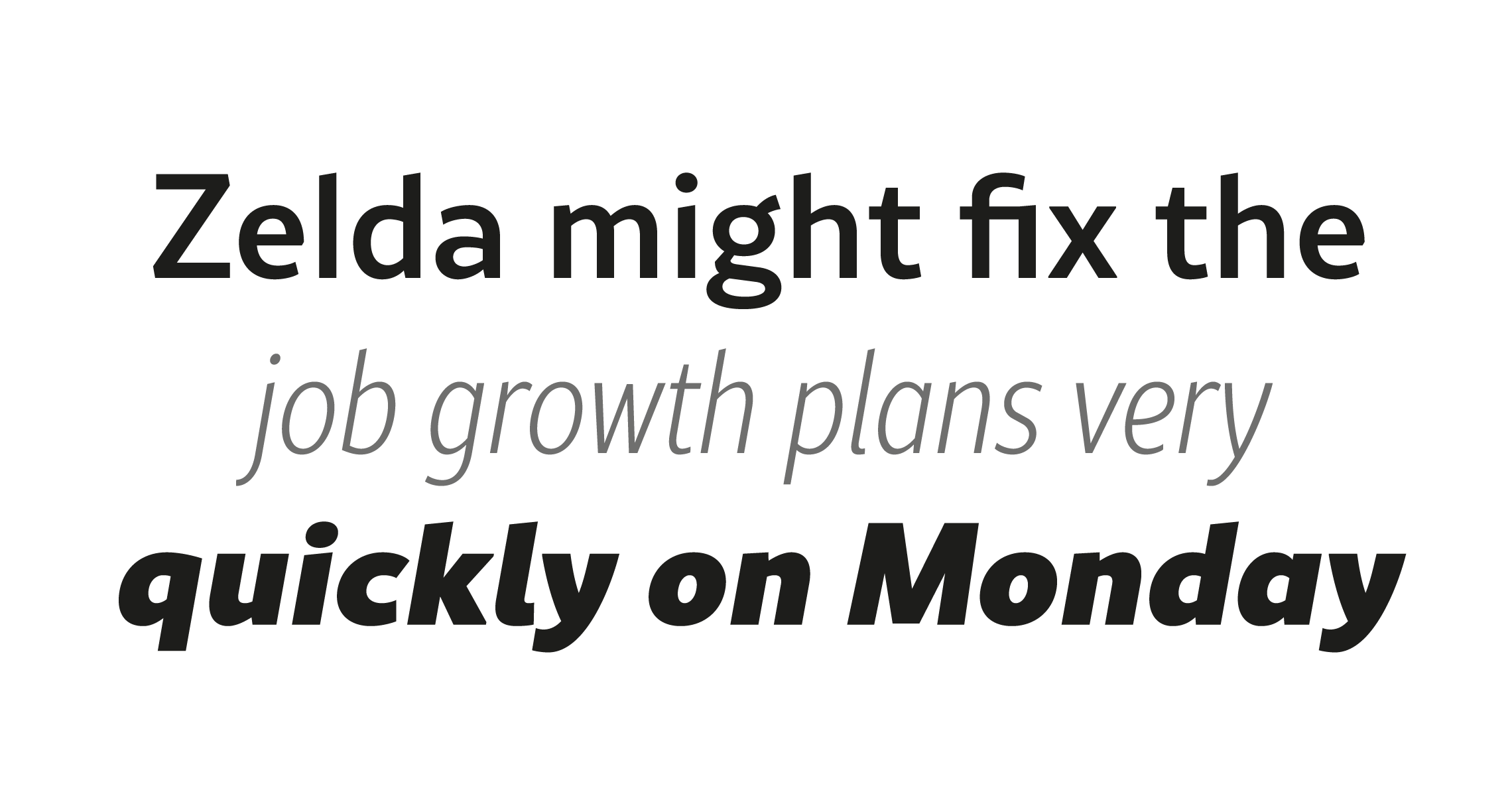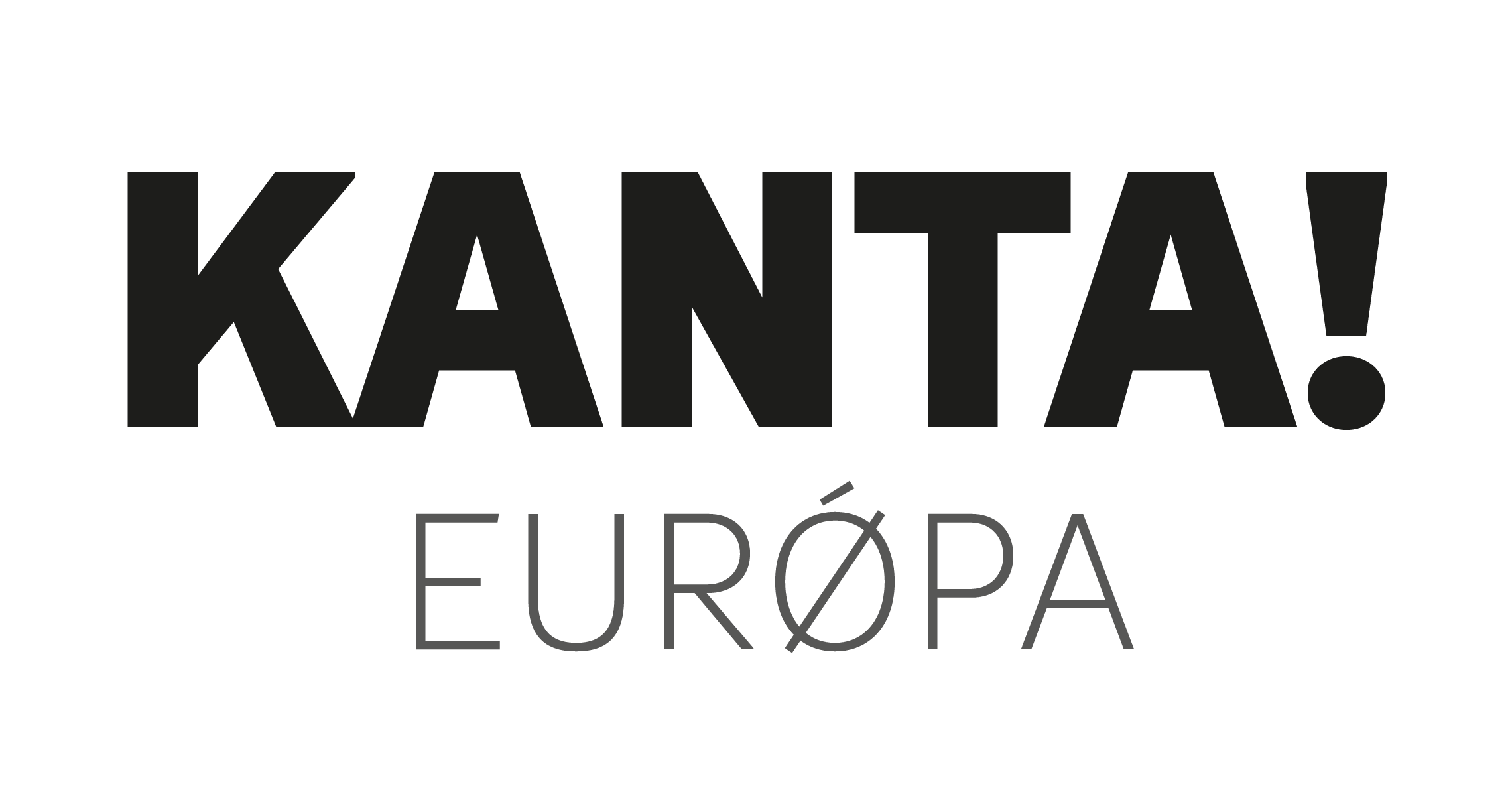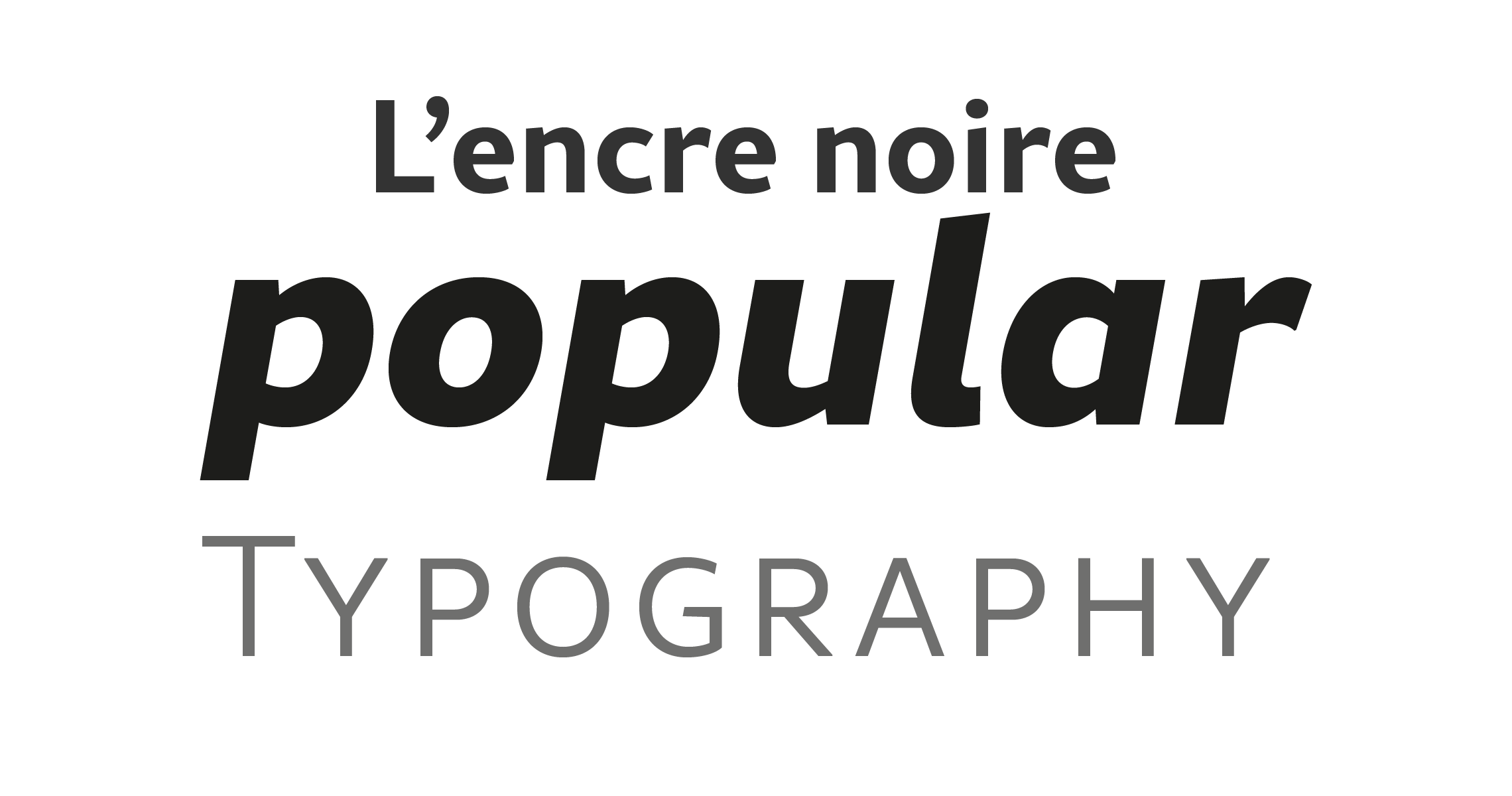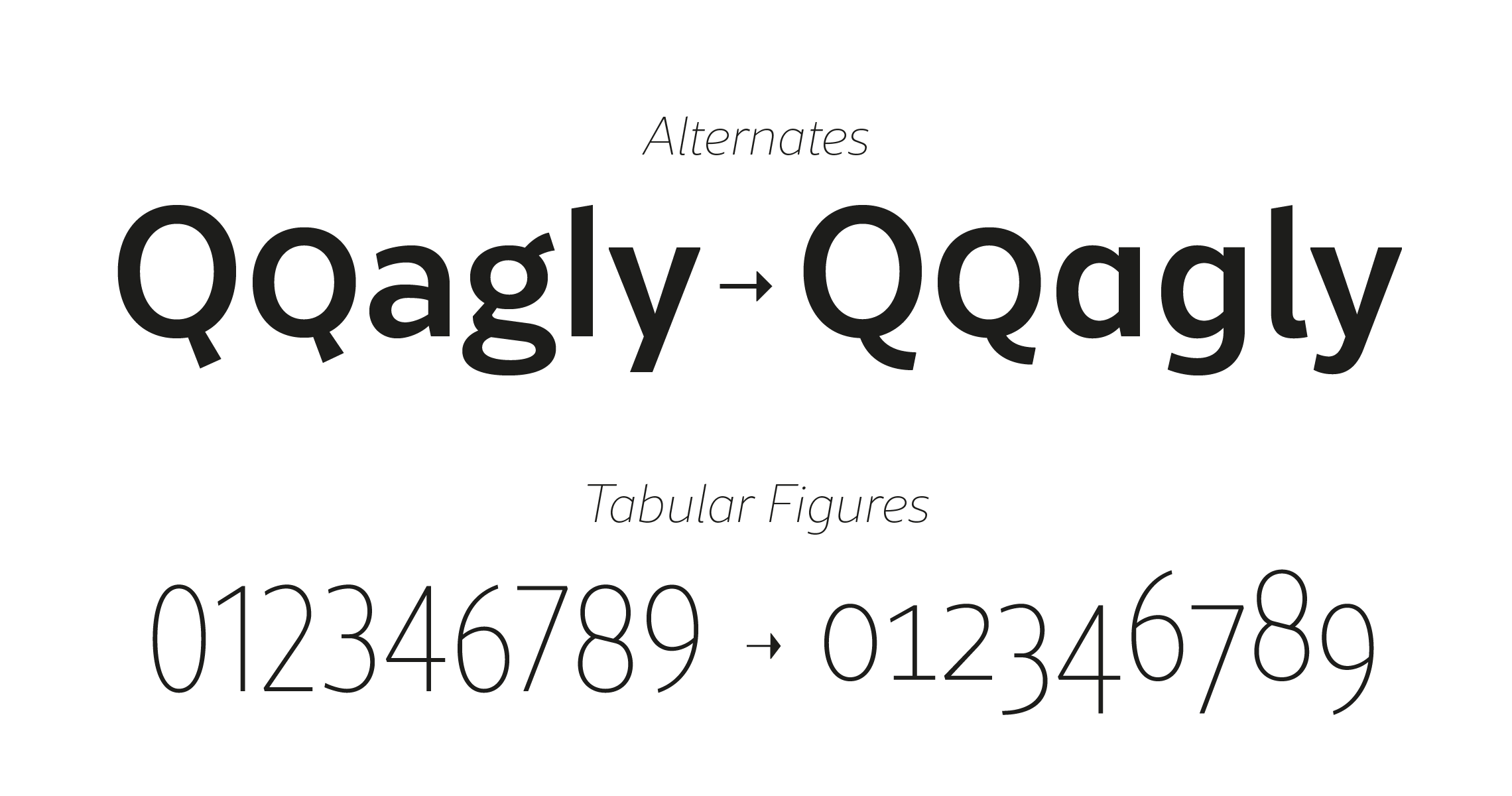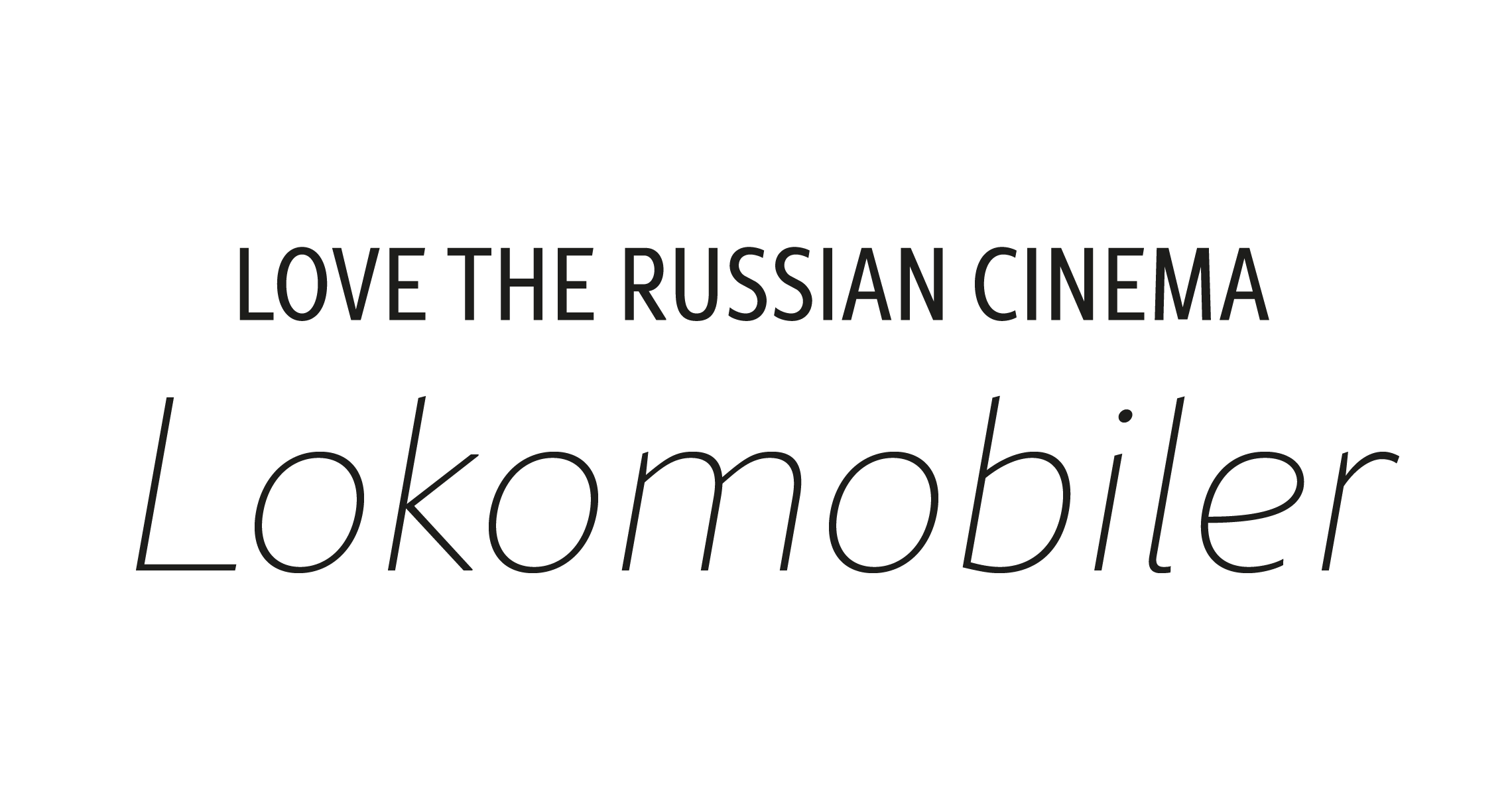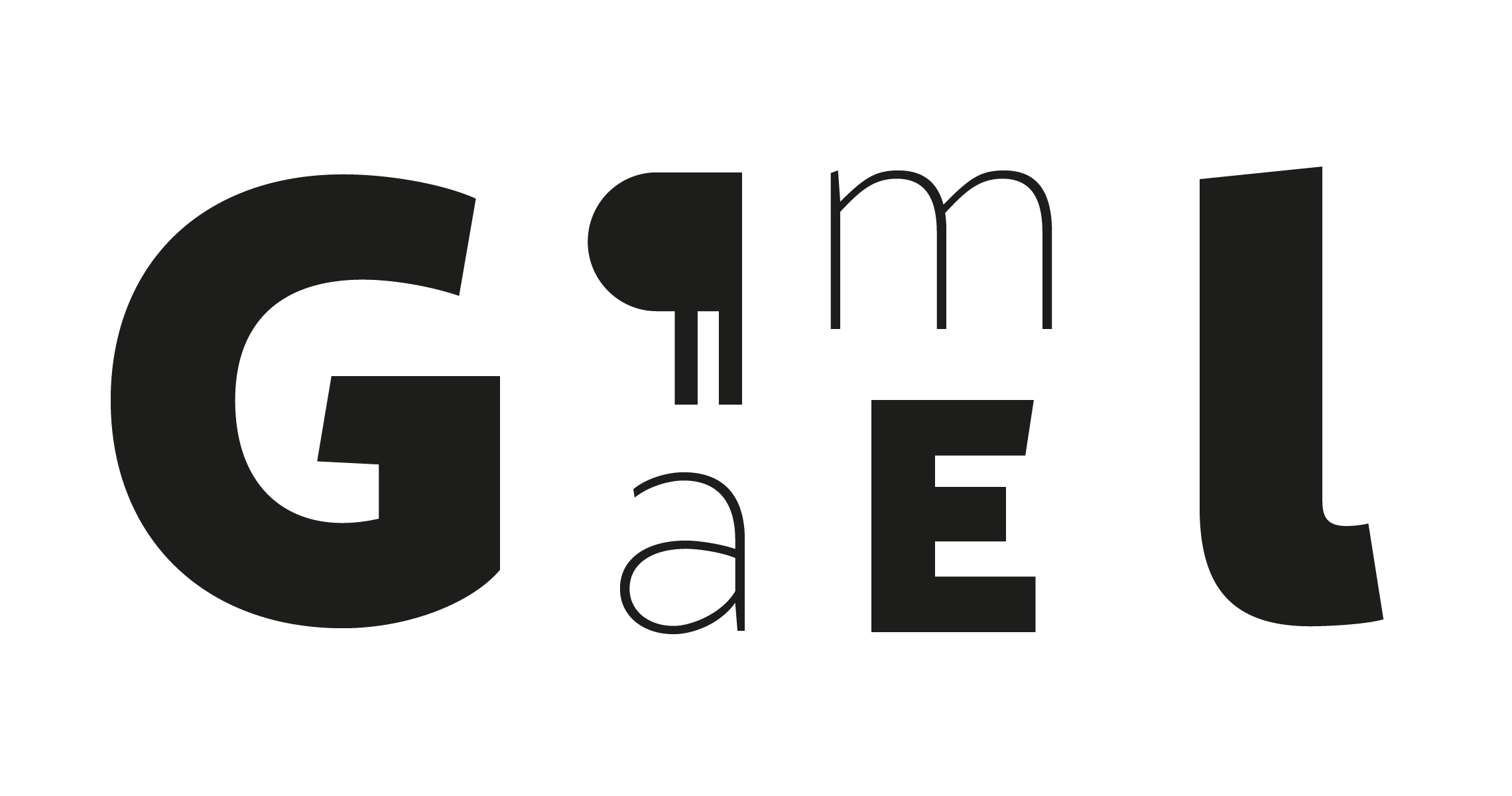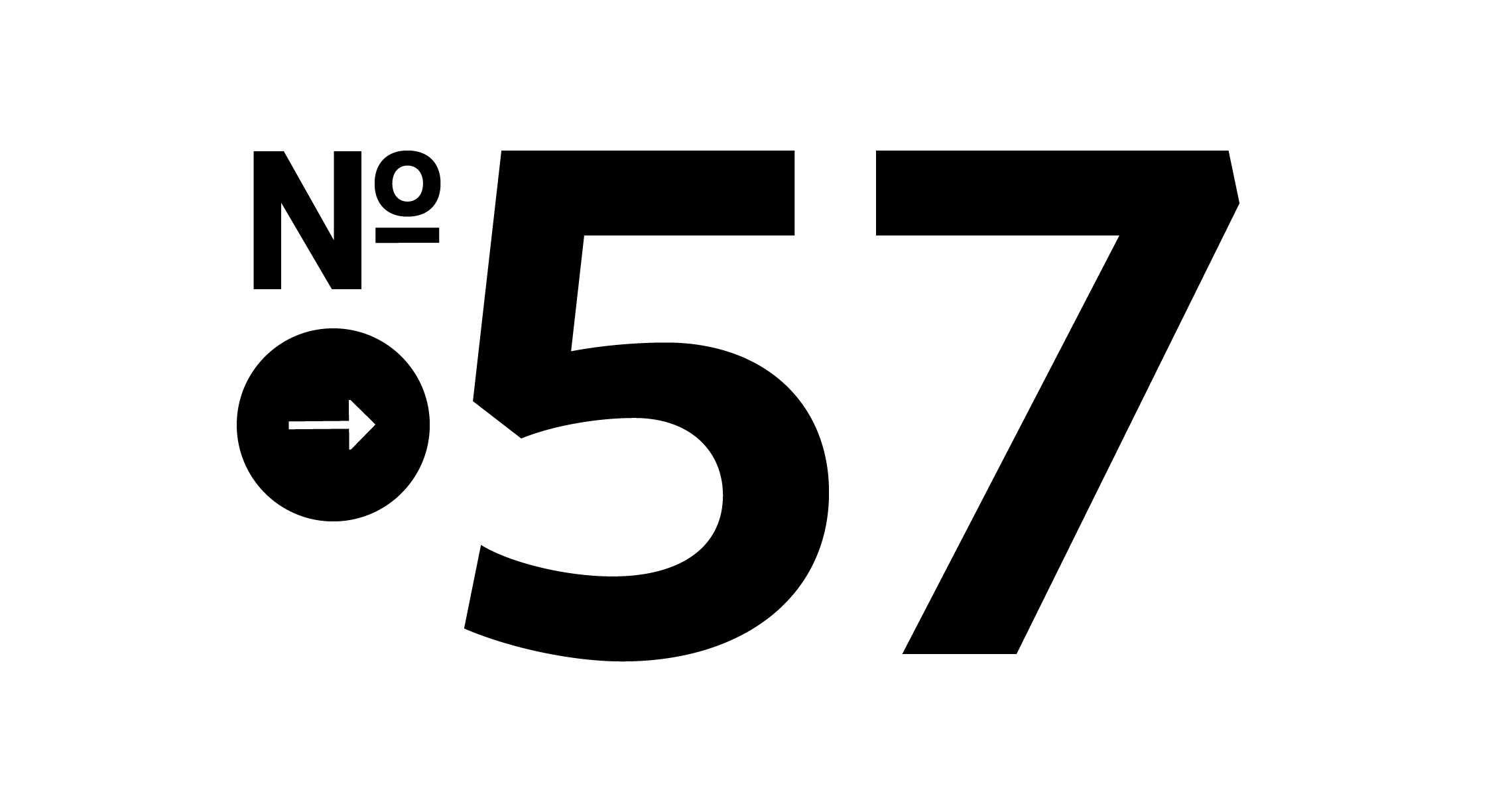
Rival Sans
Polygonomy
A touch of modernism for all kinds of projects
Rival Sans is a highly versatile sans-serif font family, consisting of 32 fonts and 2 styles, making it suitable for a wide range of graphic design projects such as branding, signage, editorial design, advertising, packaging, and logo creation. Its ten-degree angled terminals and sharp upward cuts on certain letters (like “l”, “b”, or “d”) bring dynamism and modernity to the design.
Rival Sans is also distinguished by its humanistic character, giving the family warmth and a more natural approach. Its open forms and soft curves, inspired by handwritten script, create a more fluid and engaging visual connection with the reader. Characters like “a” and “e” feature subtly rounded and open contours, enhancing this organic dimension. This humanistic approach makes text more inviting while maintaining visual functionality and efficiency, ensuring a perfect balance between modernity and humanity.
The italic versions of Rival Sans also stand out with rounded curves, adding a humanistic touch that blends seamlessly with the regular version while retaining a decidedly contemporary look.
Rival Sans includes numerous powerful OpenType features, such as small caps, old-style and tabular figures, slashed zero, ligatures, and alternate characters, adding personality to graphic design projects. It is also designed for complex editorial layouts, featuring a robust kerning system called “Pro Kerning,” which optimizes headlines, subtitles, and long paragraphs in real time, using over 2,500 glyph pairs. Additionally, the italic styles of this family are fully developed as distinct styles, with a calligraphic design that differs from the regular version.
With an extended character set of over 980 glyphs, Rival Sans covers more than 200 languages from Western, Eastern, and Central Europe. A narrow version is also available for editorial projects with limited space.
Finally, Rival Sans is part of a comprehensive “type system” that includes variants such as serif and slab versions, offering a total of 62 styles for your graphic or web creations while ensuring visual consistency.